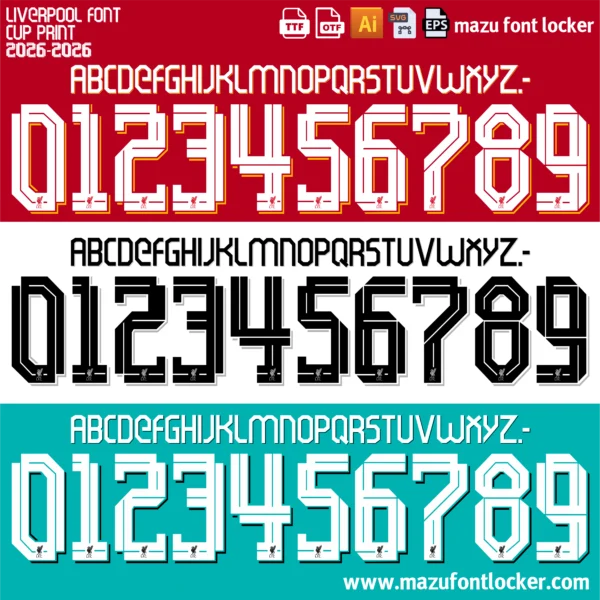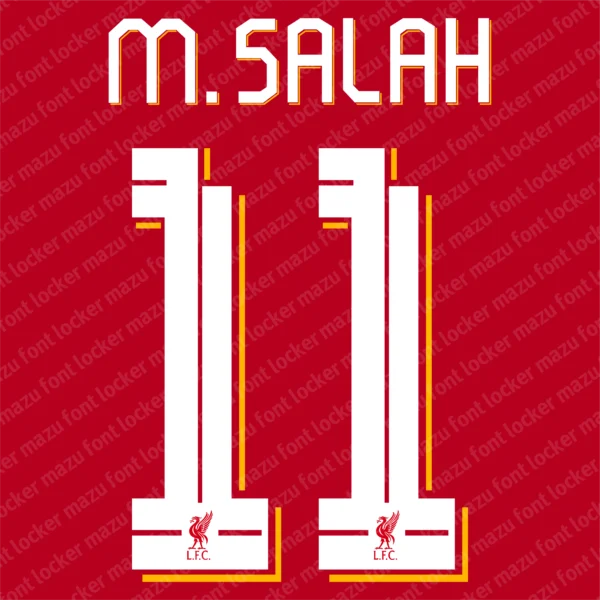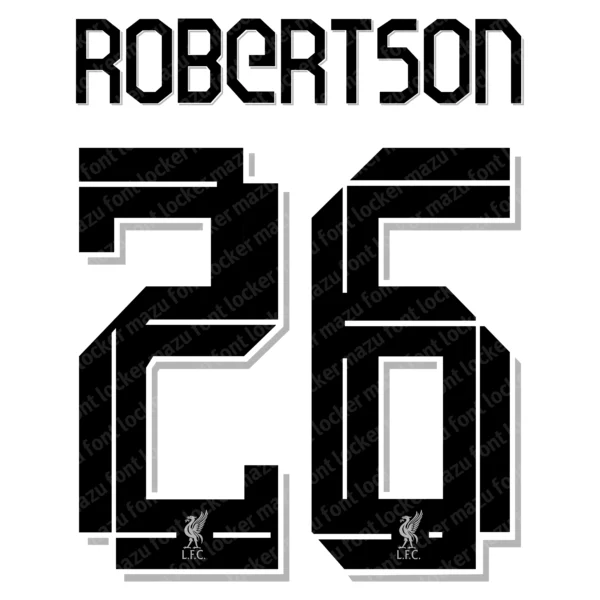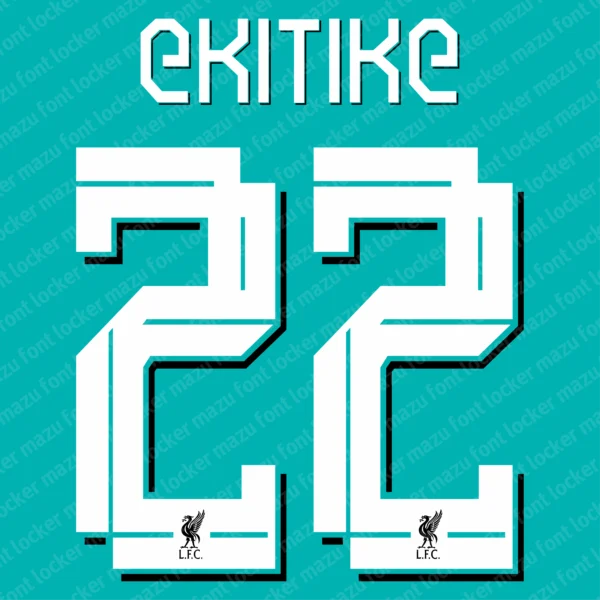
Liverpool 2025-2026 Font Vector – Epic Anfield Masterpiece
Liverpool 2025-2026 Font Vector – Authentic Reds Typeface
The Liverpool 2025-2026 Font Vector is a premium typeface that accurately recreates the official match lettering worn by Liverpool FC during the 2025-2026 season. This high-quality vector font kit captures the bold, iconic, and modern typography that represents the current powerhouse of English football.
Why Choose Liverpool 2025-2026 Font Vector
This font stands out because of its sharp vector precision and strong club identity. Every letter and number is crafted to match the exact style used on the players’ shirts during the 2025-2026 campaign. Whether you are making realistic kit templates or exciting Liverpool content, the Liverpool 2025-2026 Font Vector gives your designs that authentic Reds look.
The letterforms in the Liverpool 2025-2026 Font Vector are tall, bold, and highly readable. The strokes have a strong, clean weight with excellent edge definition that looks powerful on the back of jerseys while maintaining modern elegance and clarity.
• Full uppercase A–Z and numbers 0–9 in authentic Liverpool 2025-2026 style
• Special Liverpool FC crest glyph for accurate shirt number detailing